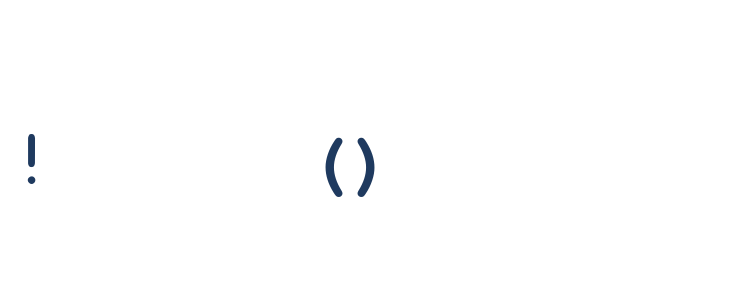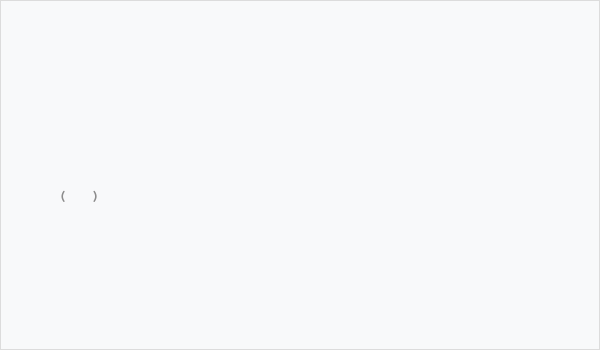
Mothanna Oblique Font
Mothanna Oblique Description
This font features a unique and artistic design, characterized by its oblique style that adds a dynamic and modern touch. The characters are elegantly curved, with a smooth flow that enhances readability while maintaining a distinct appearance. The font's special characters, such as the exclamation mark and parentheses, are crafted with precision, adding to its overall aesthetic appeal. This font is suitable for creative projects that require a contemporary and stylish look, making it ideal for branding, advertising, and digital media.
| Use Case | Logos, Headlines, Digital Media |
| Proposed Projects | Ideal for branding, advertising, digital media, and creative projects. |